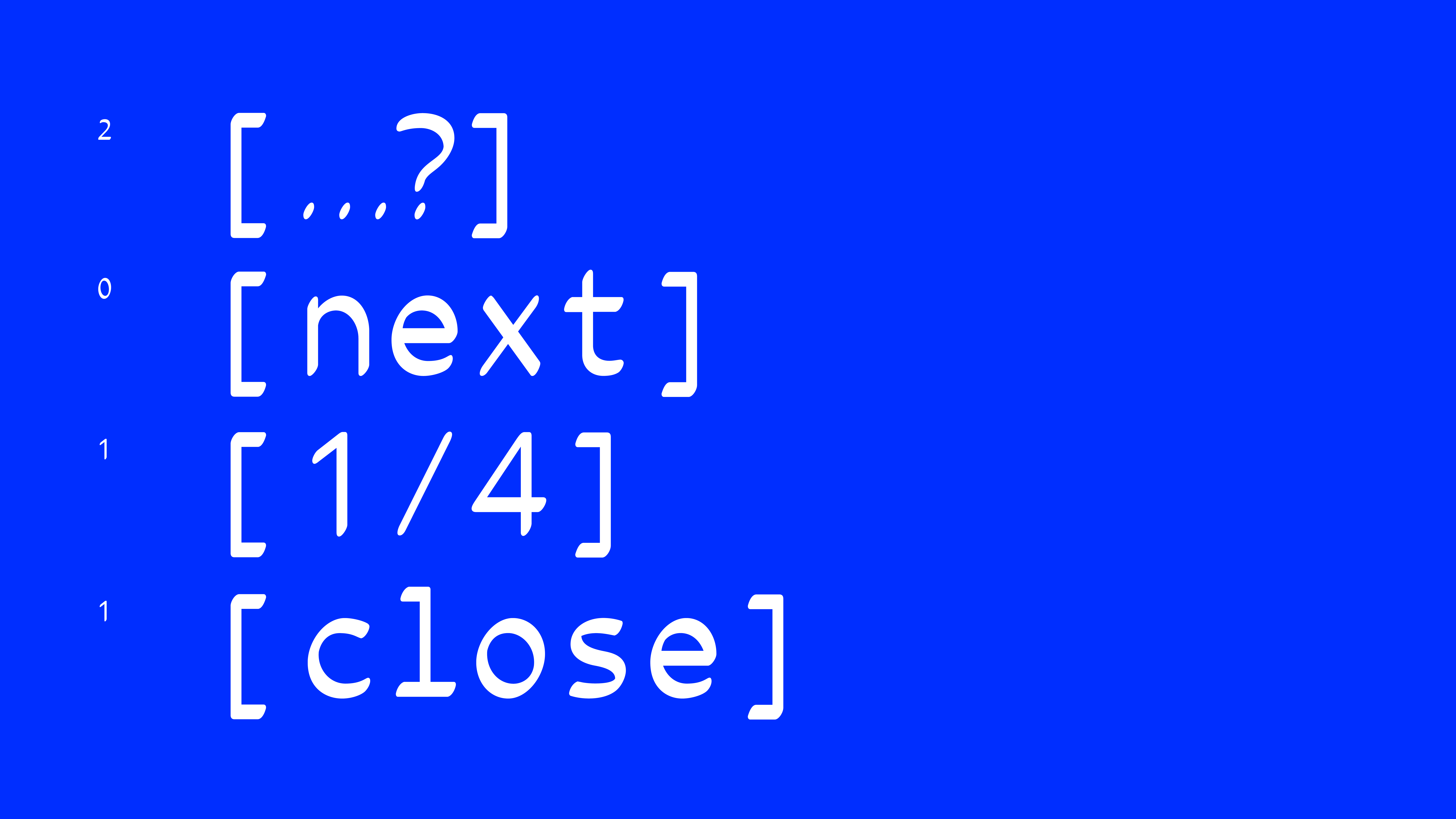
F37 Macro Mono
Bringing a touch of humanity to the code, Eurico Sá Fernandes draws on his multidisciplinary background to create a refreshing take on the mono-space genre.
A graphic designer, developer and artist, Fernandes is very familiar blending skills and concepts. Originally designed in 2011, F37 Macro Mono has been updated, re-released and is now available in 4 styles. These range from a rounded and mono-linear style typical of early typewriter fonts, to a highly calligraphic style. The calligraphic style is elegantly sharp, built from a traditional pen angle that is contained by the mono width genre. The other two styles sit within this range giving you flexibility of expression.
F37® × Eurico Sá Fernandes
The Designer
Eurico Sá Fernandes is the founder, art director and web developer of Oort and Lead Developer at Confederation Studio.
Through the medium of performance, installation and software, his work investigates the technification of human surroundings with a particular focus on perception, systems of reason and interaction, encryption and speculation. He is a member of the collective Soft Landings and alumni from the Dirty Art Department, Sandberg Instituut.